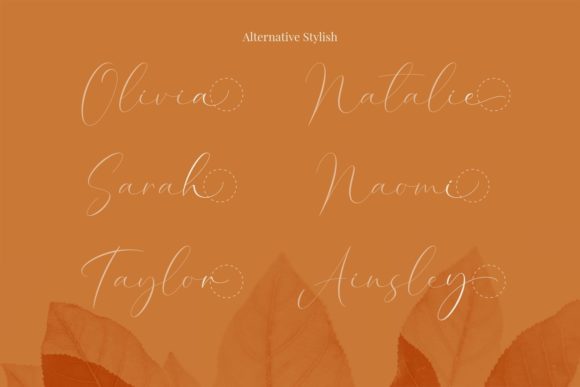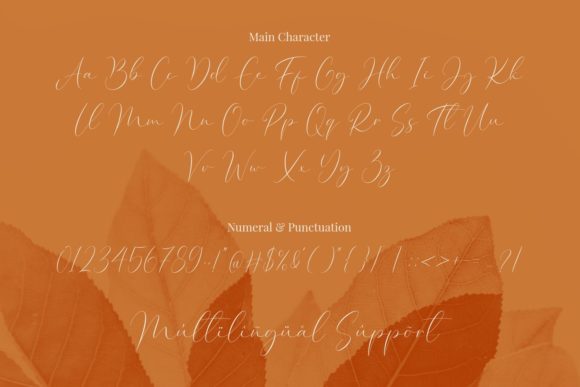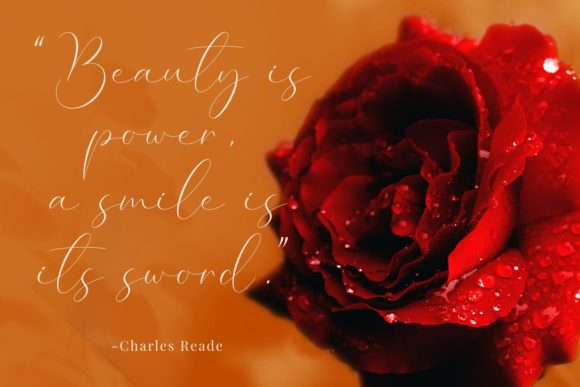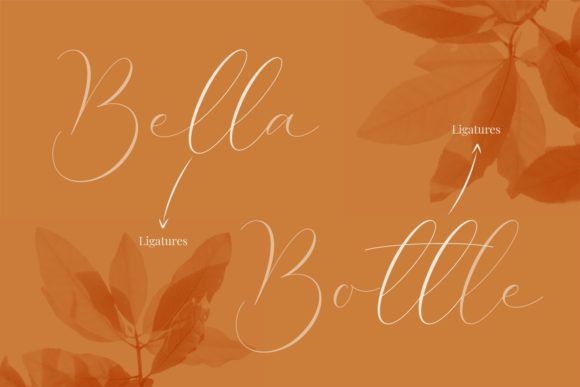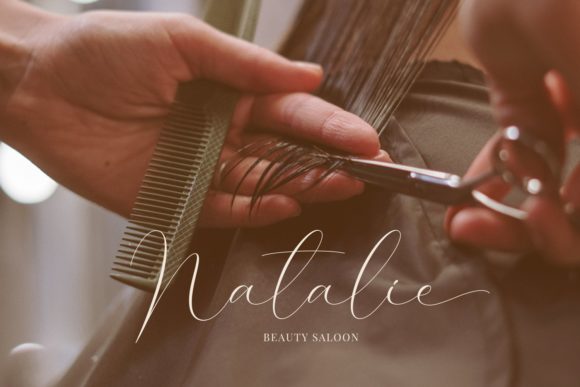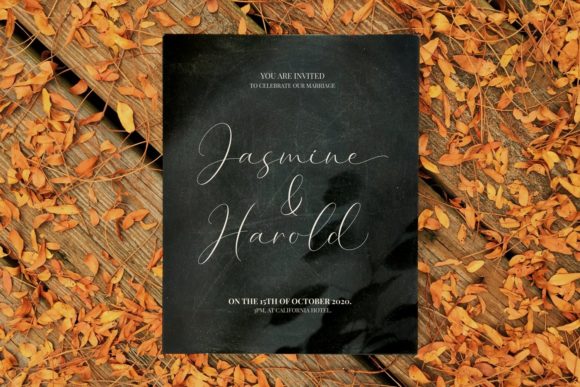
Costa Riyal Font: Elevate Your Designs with Elegance
Are you a designer or crafter looking for a font that exudes elegance and sophistication? Look no further than the Costa Riyal Font. This beautiful, handwritten font is perfect for a wide range of projects, from logos and branding to invitations, stationery, and social media posts.
What Makes Costa Riyal Font Special?
Costa Riyal Font is an elegant handwritten font that is designed to add a touch of sophistication to any project. Its unique and flowing script makes it perfect for designs that require a high level of elegance and refinement. Whether you’re working on a logo, invitation, or social media post, this font is sure to make your design stand out.
One of the best things about Costa Riyal Font is its versatility. It’s perfect for a wide range of projects, including:
- Logos and branding: Create a lasting impression with a custom logo that showcases your brand’s personality.
- Invitations and stationery: Add a touch of elegance to your invitations, wedding cards, and other stationery.
- Social media posts: Make your social media posts stand out with a font that’s both stylish and easy to read.
- Advertisements: Create eye-catching ads that grab the attention of your target audience.
- Wedding designs: Make your wedding designs truly unforgettable with a font that’s both romantic and elegant.
Why Choose Costa Riyal Font?
There are many fonts to choose from, but Costa Riyal Font stands out from the rest. Here are just a few reasons why:
- Unique and elegant design: Costa Riyal Font has a unique and elegant design that’s sure to make your designs stand out.
- Highly versatile: This font is perfect for a wide range of projects, from logos and branding to social media posts and advertisements.
- Professional quality: Costa Riyal Font is designed to high professional standards, ensuring that your designs look polished and refined.
Tips for Using Costa Riyal Font
Here are a few tips for getting the most out of Costa Riyal Font:
- Experiment with different sizes and colors to find the perfect combination for your design.
- Use the font’s built-in swashes and glyphs to add variety and interest to your designs.
- Pair Costa Riyal Font with other fonts to create a unique and eye-catching design.
- Don’t be afraid to get creative and try new things – Costa Riyal Font is designed to be versatile and easy to use.